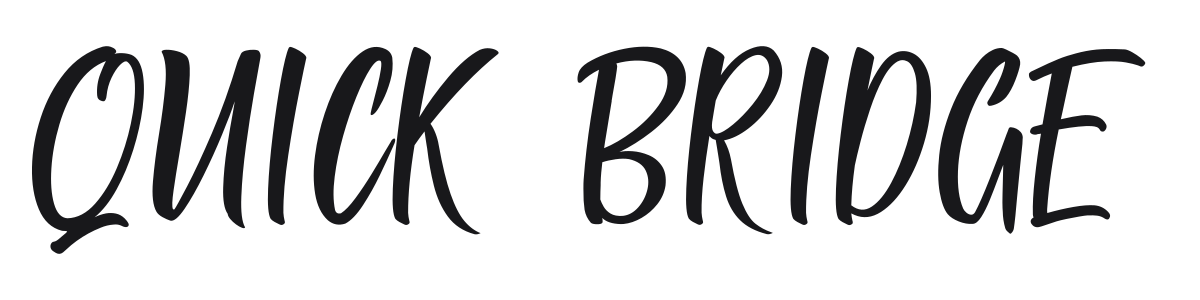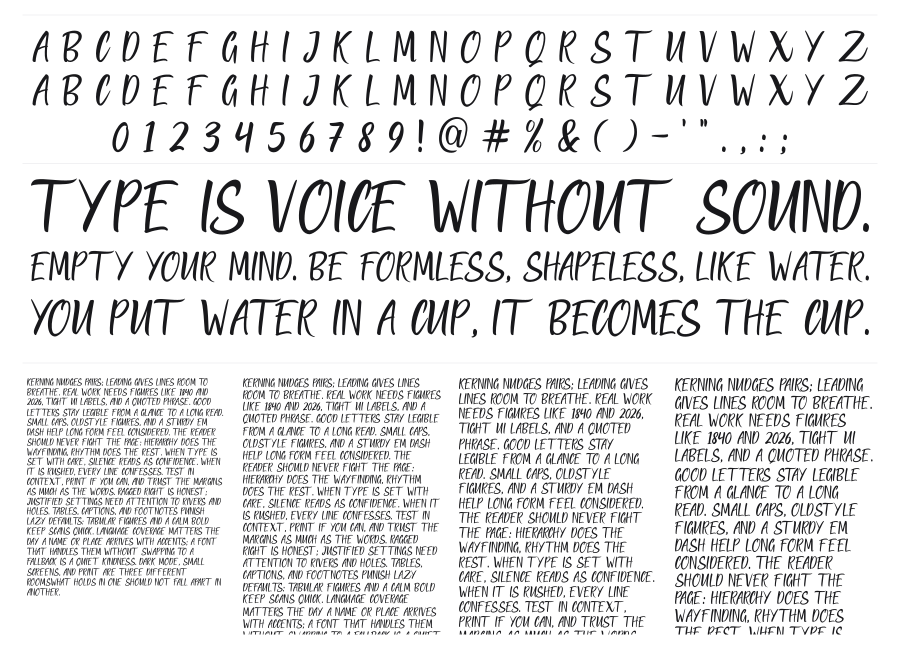
Quick Bridge
Quick Bridge is a bold uppercase brush script with the energy of hand-lettered signage. The strokes carry natural variation, ink-like terminals, and a loosely rhythmic baseline that keeps it feeling authentic rather than mechanical. Strong for logos, product labels, or any headline that needs a casual, confident presence.